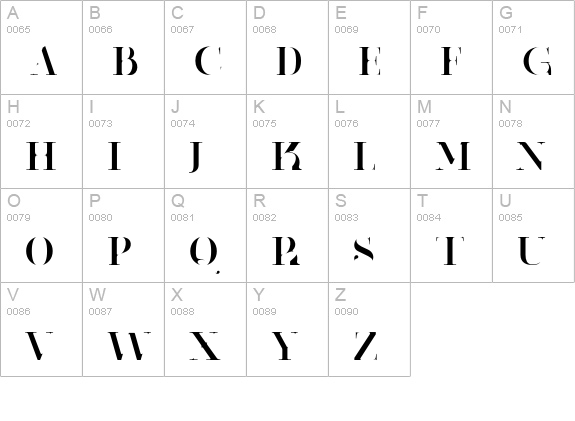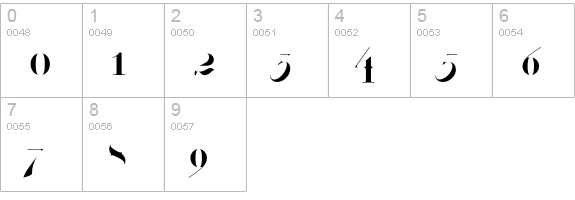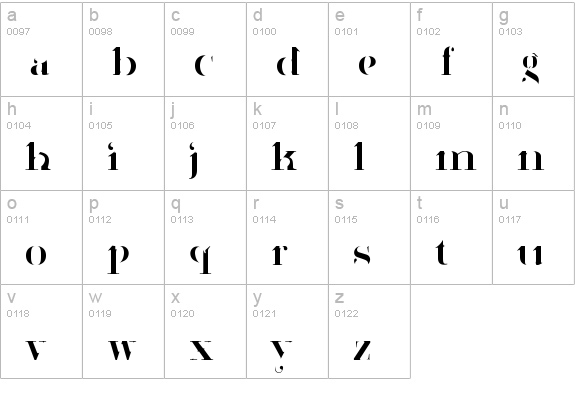
Paris Pro Bold White Font Details
Paris Pro Bold White is a strong, high-contrast variant in the Paris typeface family \xE2\x80\x94 well suited to headlines, attention-grabbing titles, and strong calls-to-action.
Paris Pro Bold White font is a stunning and modern typeface that exudes elegance and sophistication. Its bold and clean lines make it perfect for a wide range of design projects, from branding and advertising to editorial and web design. The striking white color adds a touch of contemporary flair, making this font truly stand out. Best of all, Paris Pro Bold White font is available for free download at FontsMarket.com. Whether you're a professional designer looking to elevate your projects or a creative enthusiast exploring new fonts, this typeface is a must-have in your font collection. Don't miss out on the opportunity to add Paris Pro Bold White to your toolkit and make a lasting impression with your next design endeavor.